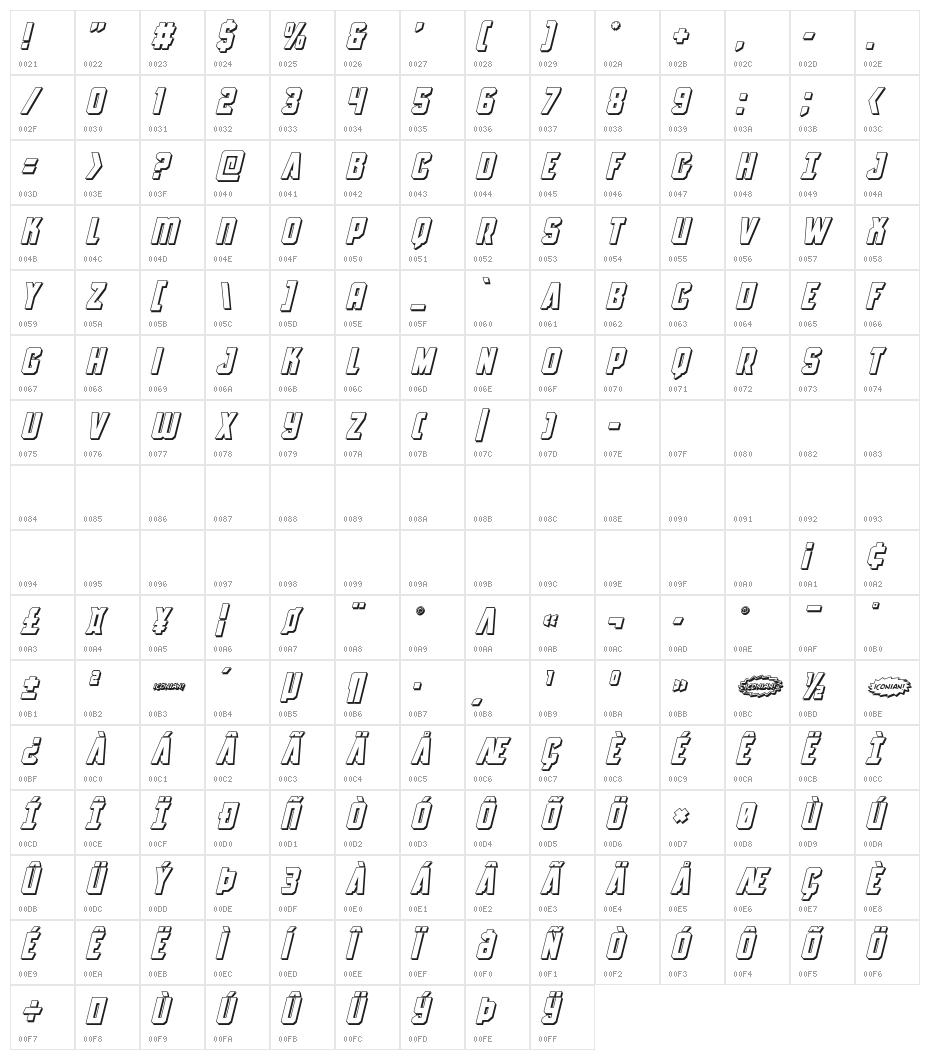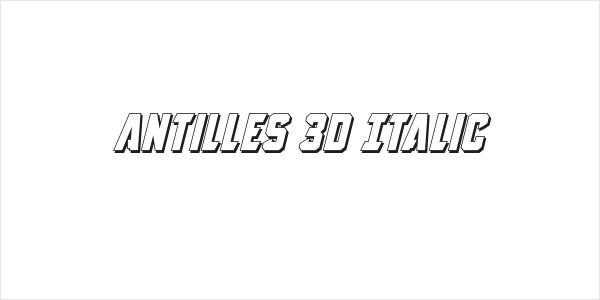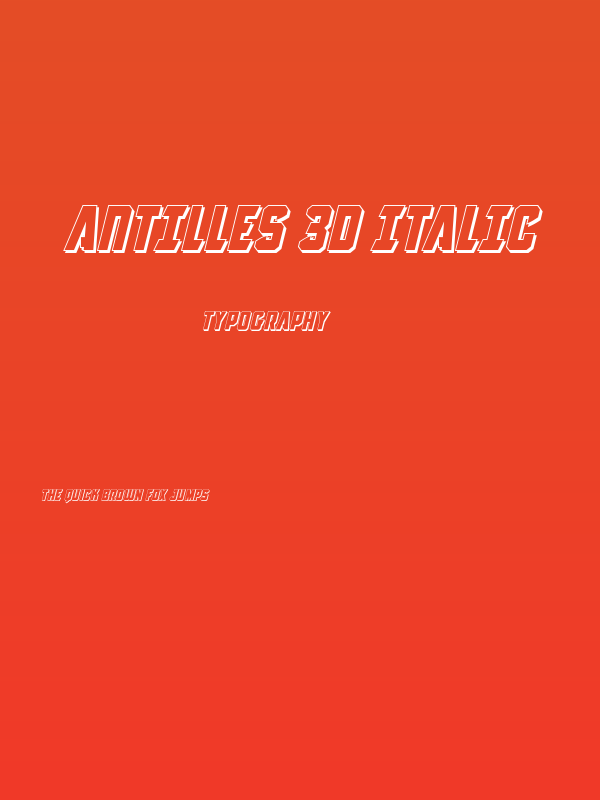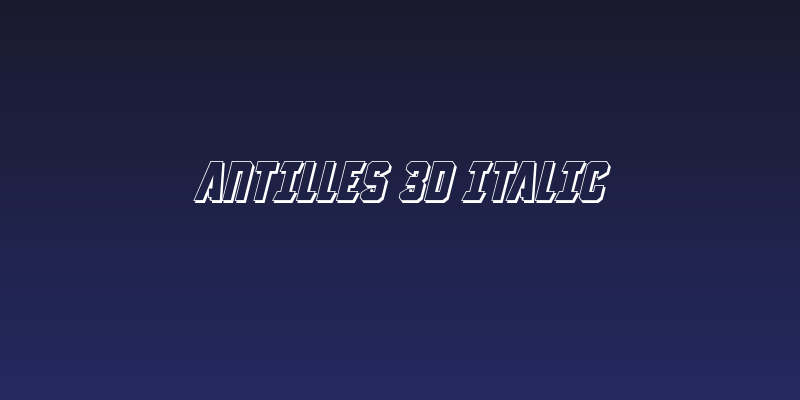
Antilles 3D Italic Font
Antilles 3D Italic Description
This font features a bold, three-dimensional design with a strong italic slant, creating a dynamic and impactful appearance. The characters are outlined with a thick black shadow, enhancing the 3D effect and giving the text a sense of depth and movement. The uppercase letters are uniform in height, with sharp angles and clean lines that contribute to a modern and futuristic aesthetic. The numerals and special characters maintain the same bold and angular style, ensuring consistency across all elements. This font is ideal for projects that require a striking and attention-grabbing visual impact.
| Proposed Projects | Ideal for video game titles, movie posters, sports branding, and any project needing a bold, futuristic look. |